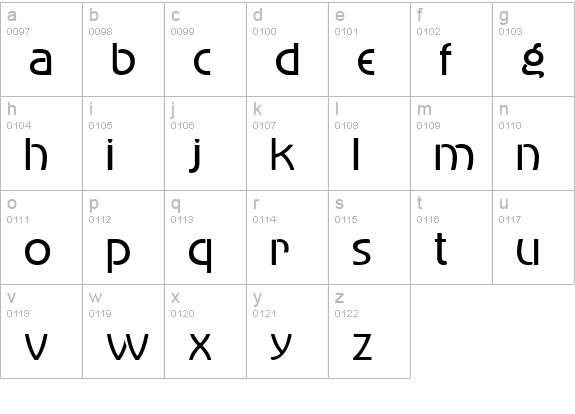
Madison Avenue Font Details
Introducing Madison Avenue, a beautifully crafted font that exudes elegance and sophistication. With its graceful curves and stylish letterforms, this typeface is perfect for adding a touch of class to any design project. Madison Avenue is a versatile font that can be used for a wide range of purposes, from luxurious branding and advertising campaigns to elegant invitations and editorial layouts. Its timeless design will never go out of style, making it a reliable choice for both print and digital applications. What makes Madison Avenue even more appealing is that it is freely available to download at FontsMarket.com. Yes, you read that right - this stunning font can be yours at no cost! With just a few clicks, you can elevate your designs without breaking the bank. Whether you're a professional designer looking for a high-quality font or a hobbyist wanting to experiment with typography, Madison Avenue is the perfect choice. Its clean lines and impeccable detailing will instantly elevate your creations, leaving a lasting impression on viewers. Don't miss out on this opportunity to enhance your design arsenal with Madison Avenue. Download it for free at FontsMarket.com and unlock a world of possibilities. Let your creativity flourish with this exceptional font that combines timeless elegance with modern versatility.